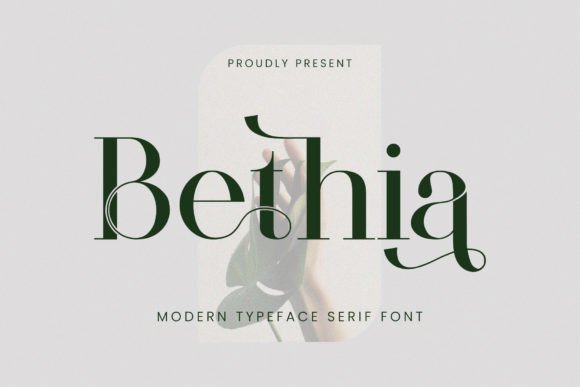
Introduction to Bethia Font
Bethia Serif is a balanced, smooth, elegant, and stylish serif font.
He has a beautiful character It fits perfectly with invitation card designs, company logos, movie titles, movie names, business cards, book titles, brand names, and various other designs.
Key Features of Bethia Font
Why Choose Bethia Font?
Bethia Font offers exceptional quality and versatility, making it a valuable addition to your design toolkit. Whether you’re creating for personal projects or commercial use, Bethia Font delivers professional results.